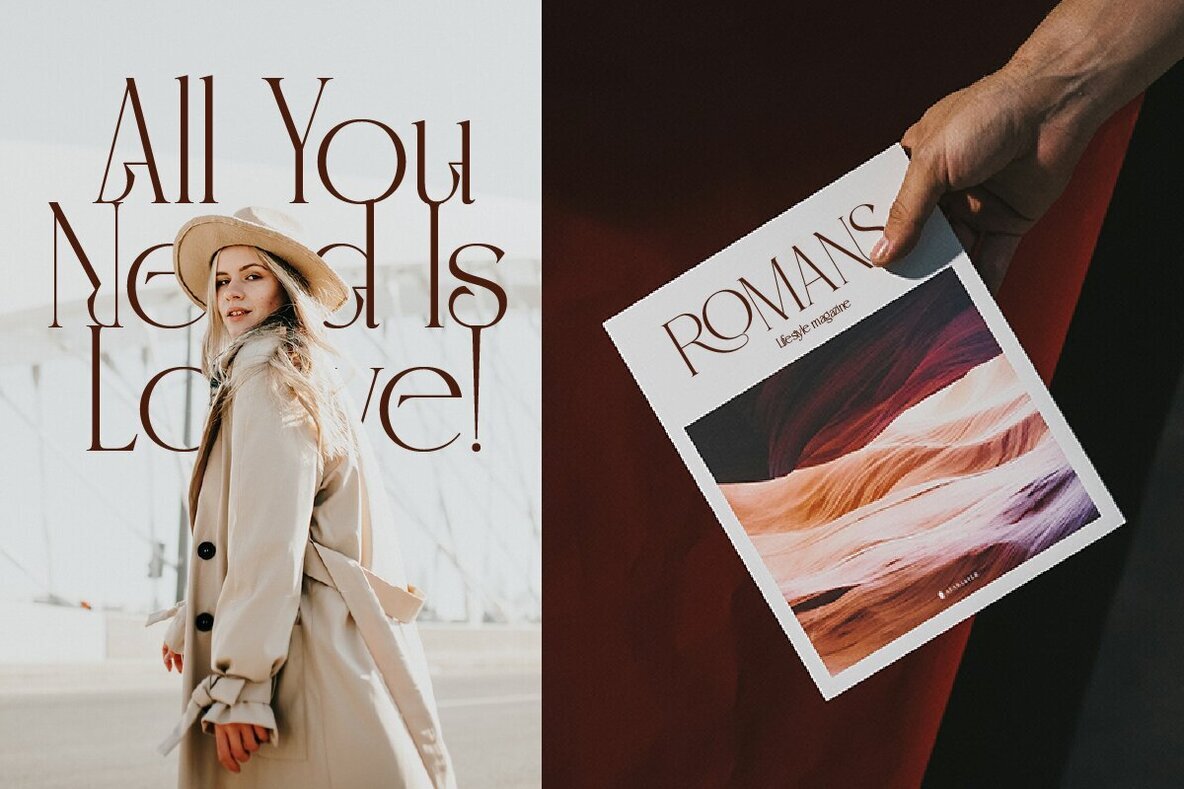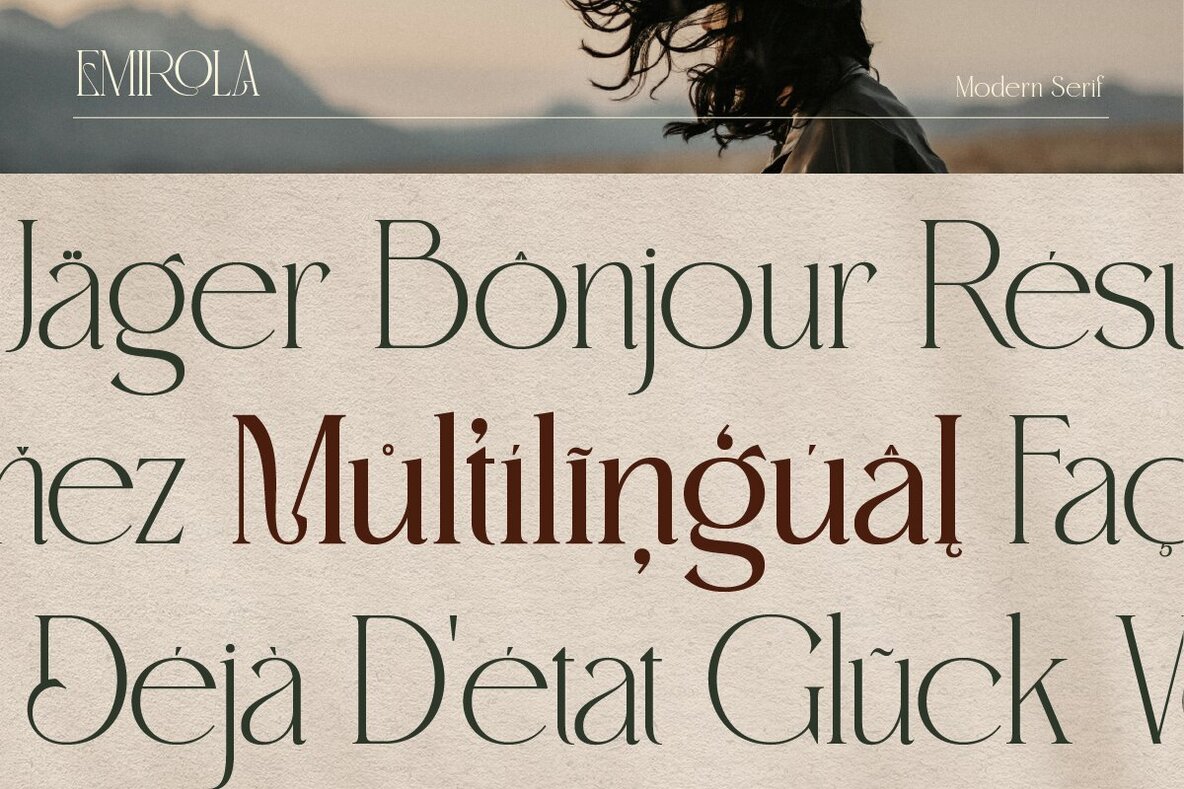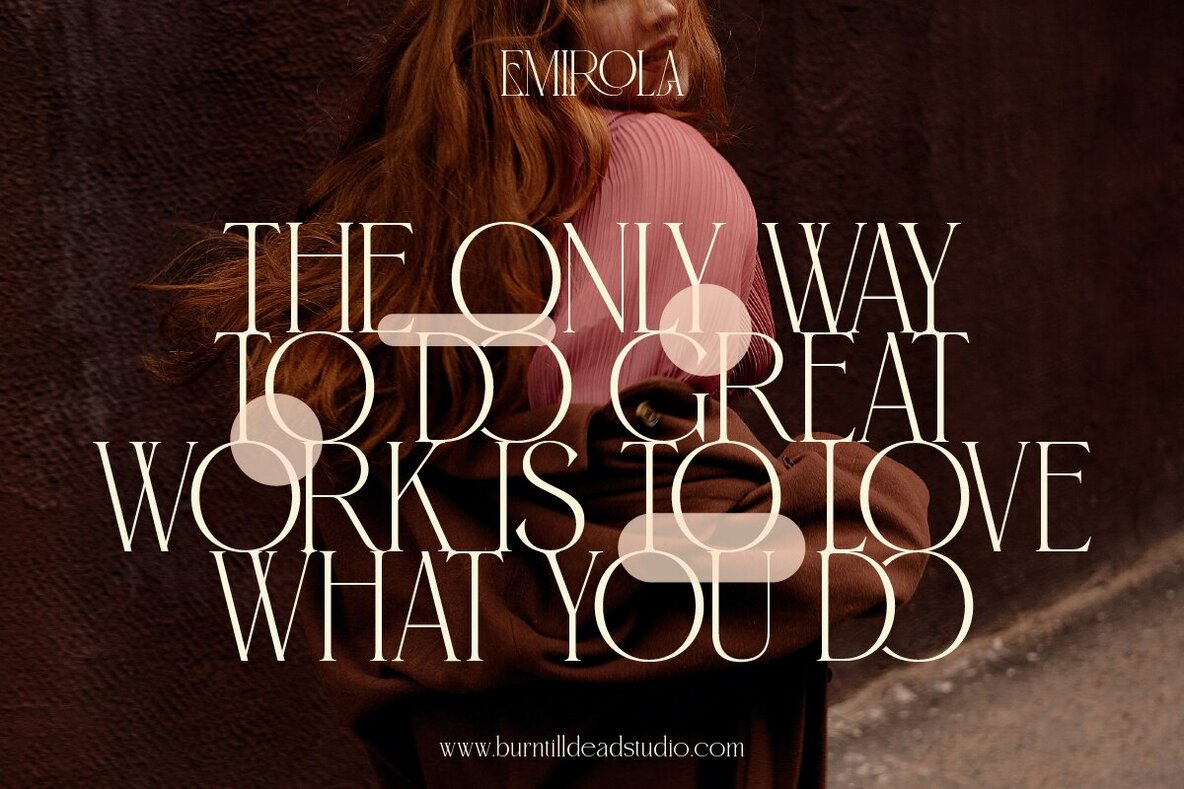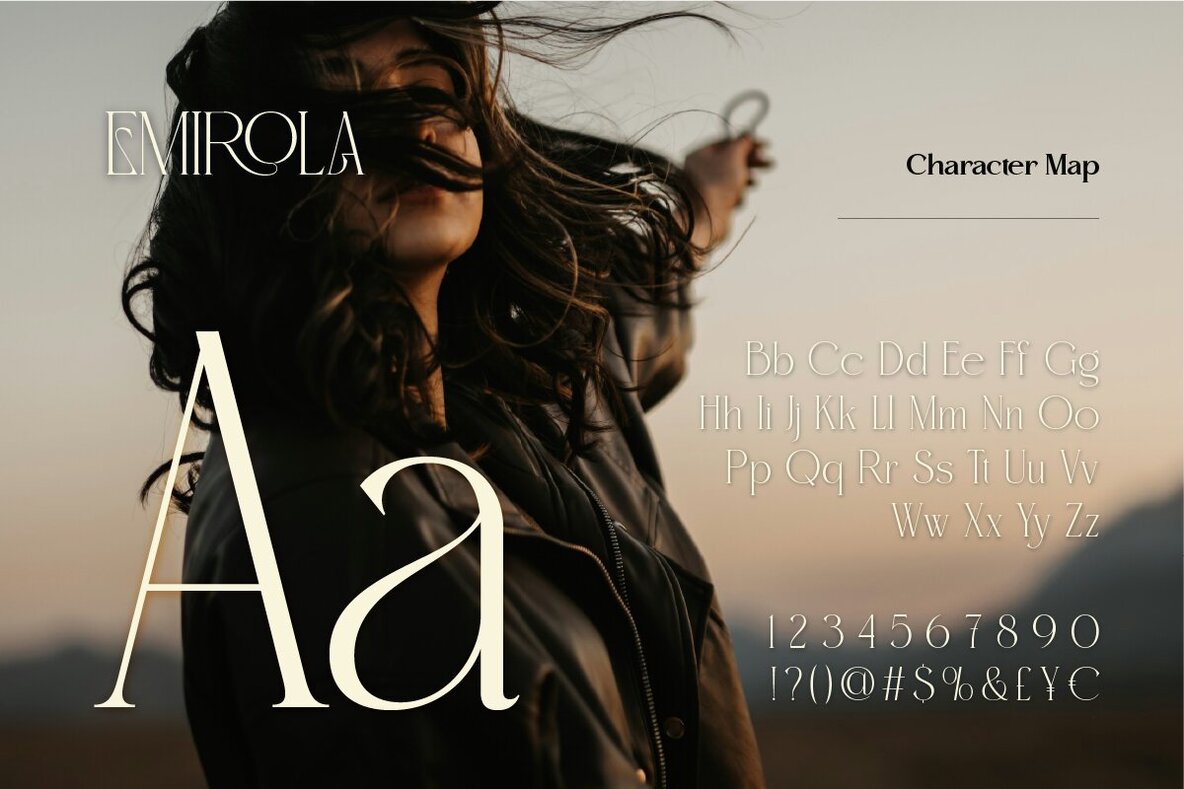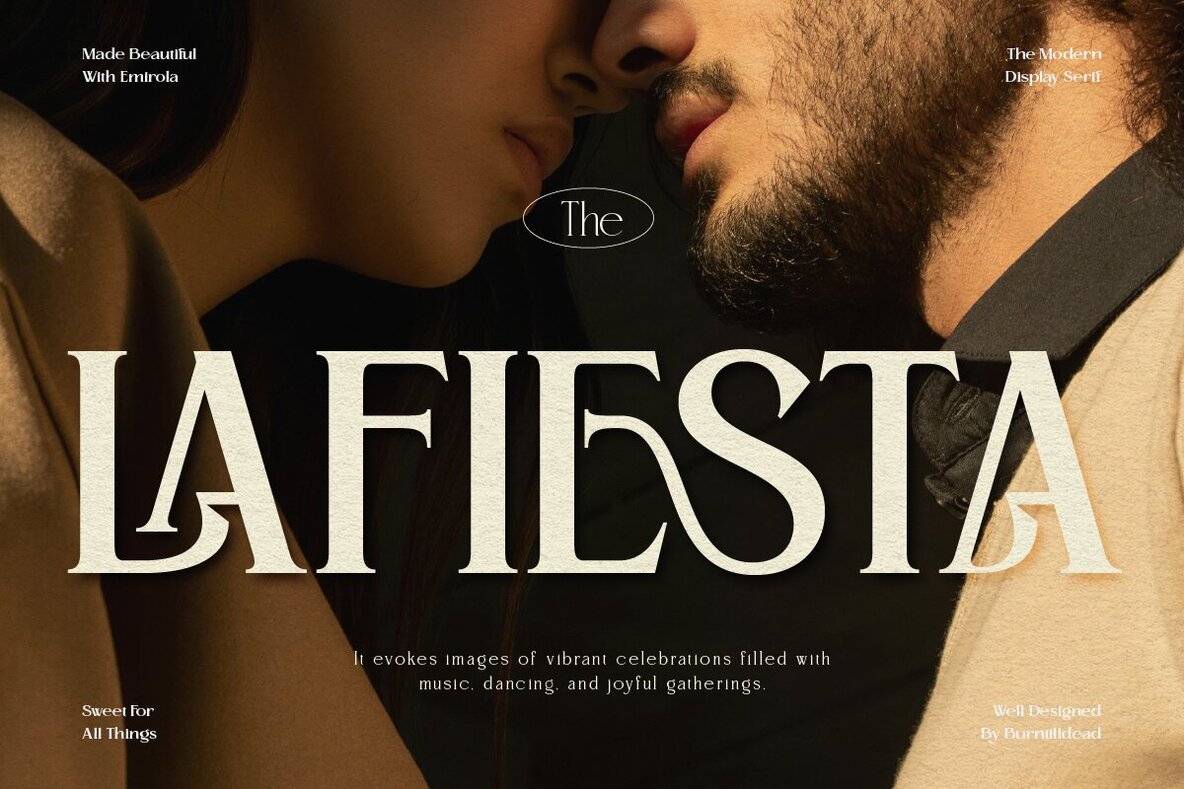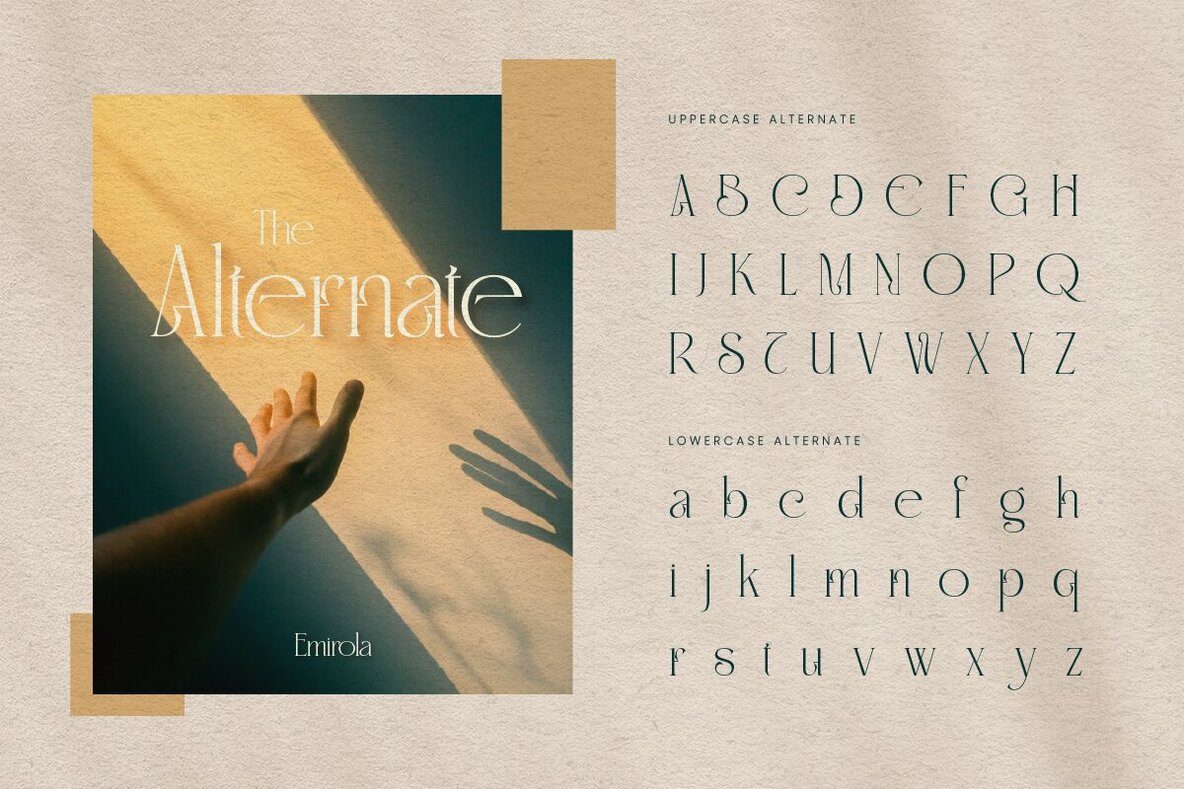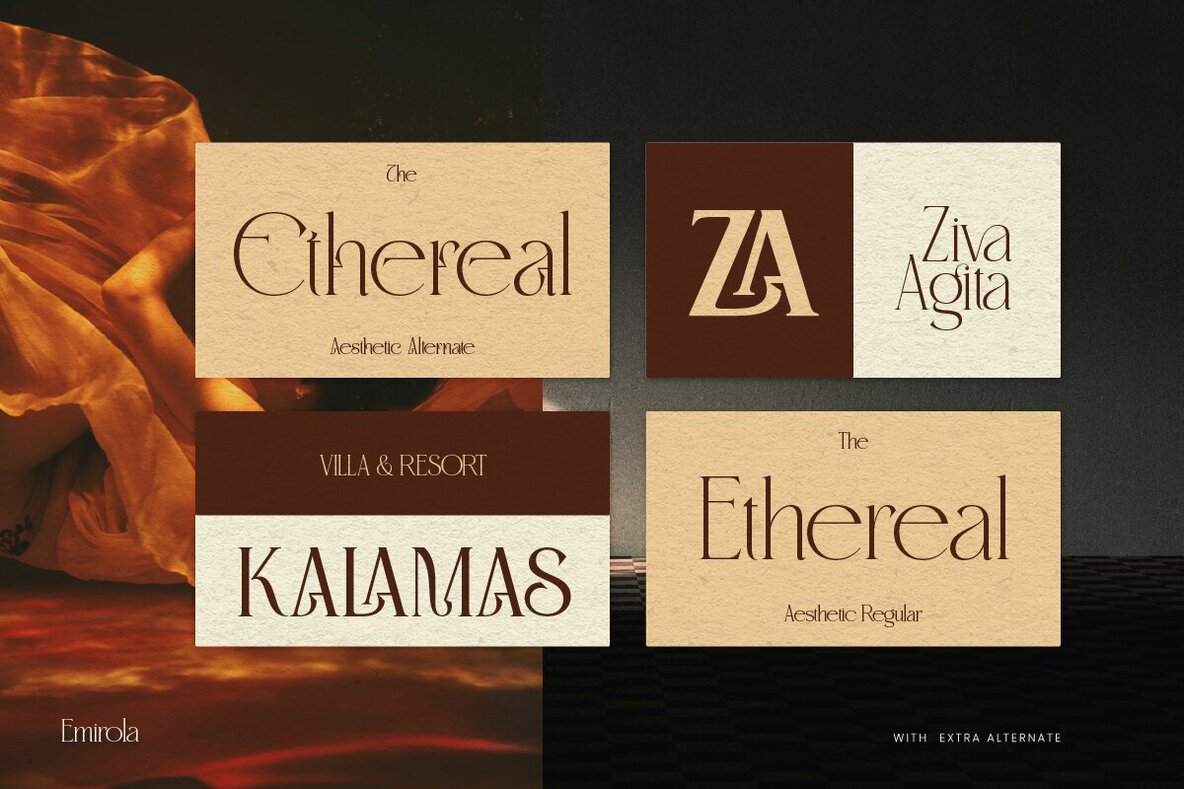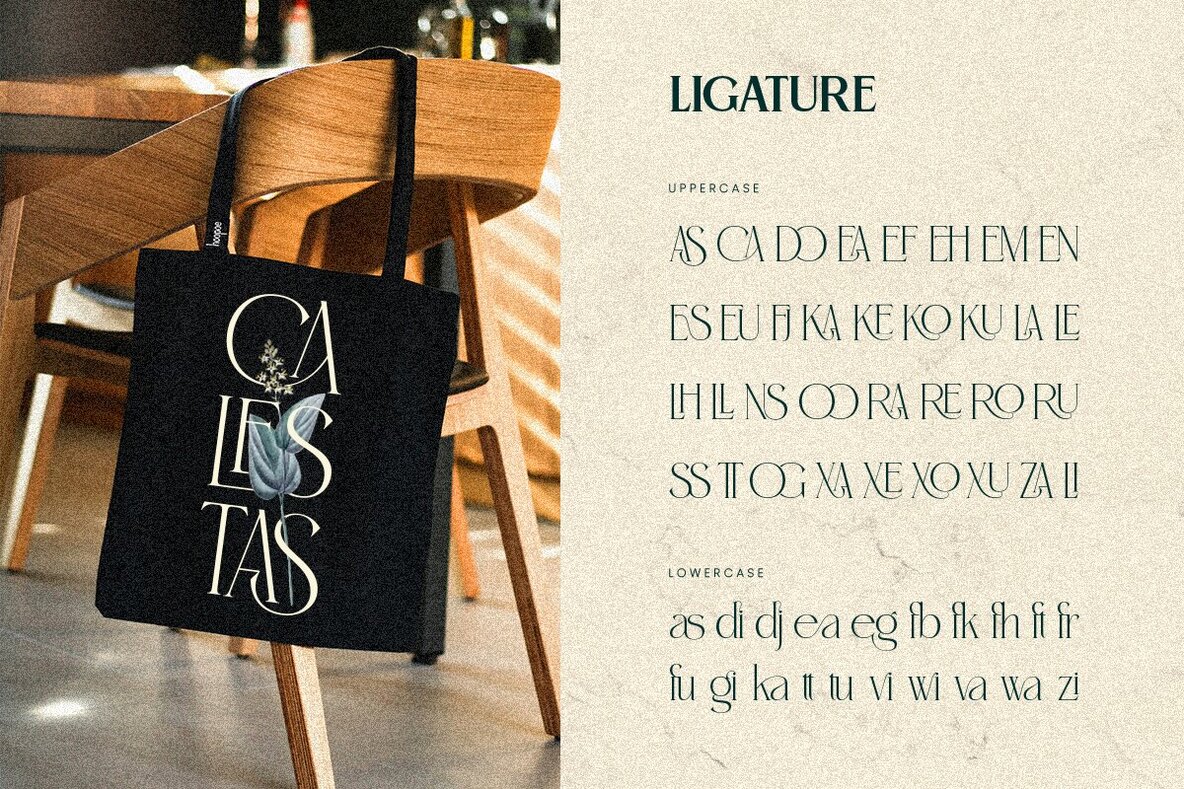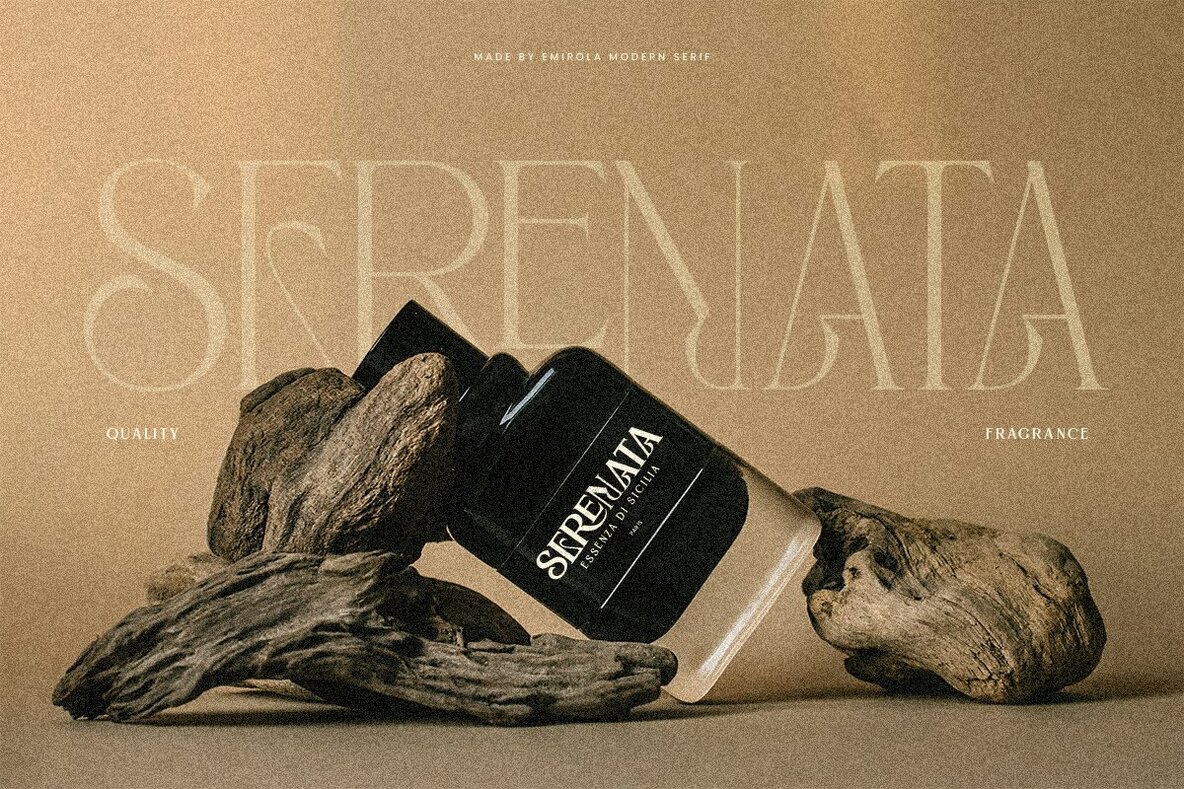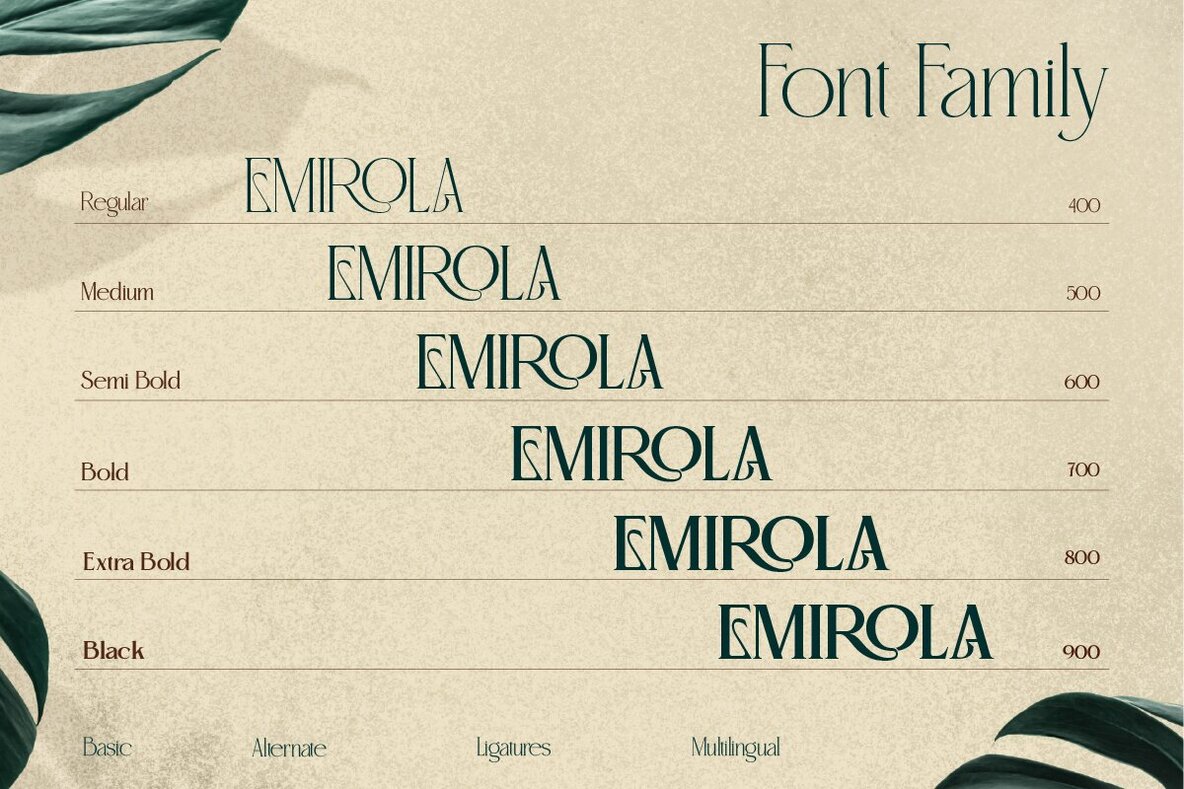
Emirola Font
Introducing Emirola, a modern and elegant serif typeface available in six distinct weights. This font family is perfect for high-end branding, editorial design, and luxurious invitations. With refined strokes and classic serifs, Emirola adds timeless beauty to any project, enhancing readability while injecting a layer of elegance and formality.
Ideal for digital and print media, Emirola ensures your message is conveyed with style and clarity, whether used for headlines or body text. The typeface features a full A-Z set, numbers, punctuation, ligatures, alternates, and multilingual support, making it versatile for a variety of design needs.